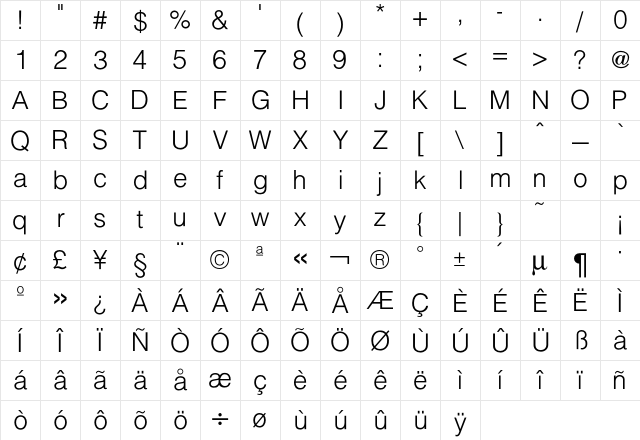
Hallmarke Light
Hallmarke Family
Hallmarke Light
Complete Hallmarke Light glyph index. Displaying only characters natively supported by Hallmarke Light font.
Design Context for Hallmarke
Hallmarke is a composed and adaptable typeface that performs quietly and consistently across a wide range of design contexts. Its slender proportions lend an understated elegance to any composition.